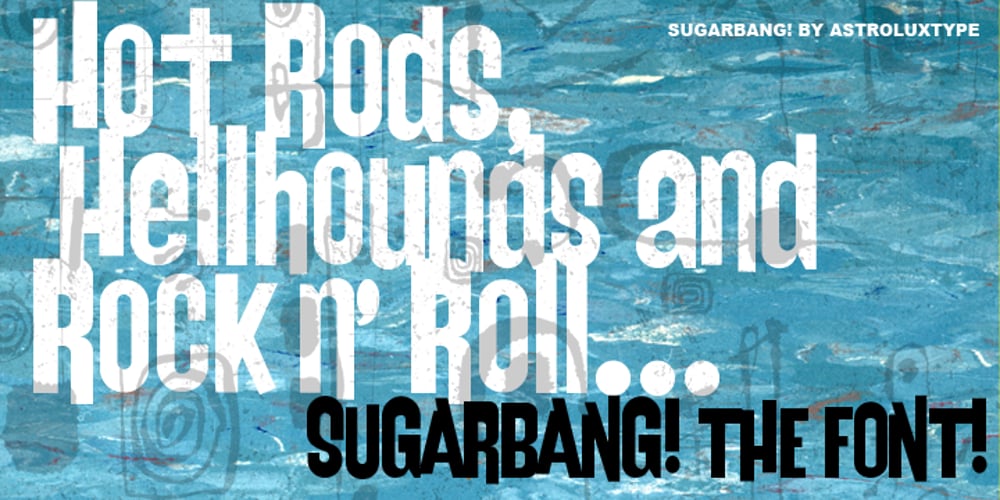
Sugarbang Font Family was designed by Glenn Parsons and published by astroluxtype. Sugarbang contains 1 styles and family package options. The 1960’s and 1970’s are the inspiration for Sugarbang! Everything from music packages, beach party movies of the 60’s to cereal box art of the 1970’s are reflected in the kooky style that this font evokes. Sugarbang! is built on a random baseline so letterforms bounce up and down adding to the “zany” look of the design. Look to the second font, Koo Koo Puff, to be the next release in the Cerealboxx collection. Available now. It is a minimal font set which includes uppercase and lowercase letterforms. Suggested uses for the font would be above 42 points in size. Please note its normal tight spacing and that cap “T” and cap “L” have been specially kerned to account for the overhang of certain other letterforms. Sugarbang! – just add milk and it’s sugar frosted font goodness.